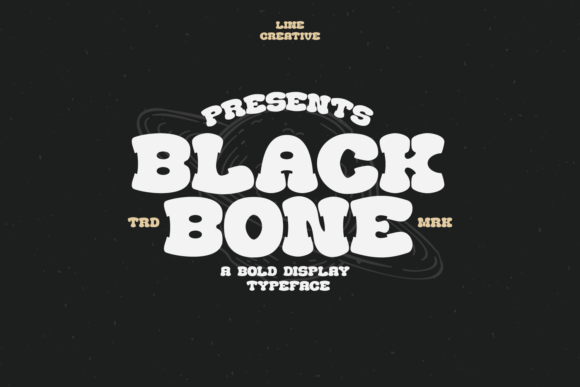
Dive into the realm of visual flair with Black Bone Font, a captivating display font that will add a touch of playfulness and friendliness to your projects. Whether you're creating posters, logos, social media graphics, or eye-catching headlines, Black Bone Font is the perfect choice for making a vibrant impact. With its retro-inspired style, this font exudes a sense of nostalgia, transporting you back to the groovy era of the past.
Embrace the joyous energy of Black Bone Font and let your creativity soar. Say goodbye to dull and conventional fonts and hello to a world of playful expression. Its unique and distinctive letterforms will make your designs pop, leaving a lasting impression on your audience. Experiment with different colors, textures, and backgrounds to create designs that are as unique as your imagination.
Unleash your inner artist and let Black Bone Font ignite your creative spark. With its versatile personality, this font can effortlessly adapt to various projects, from playful posters to captivating logos. Its friendly vibe makes it perfect for designs aimed at younger audiences, while its retro charm adds a touch of nostalgia to any project. Bold, quirky, and brimming with character, Black Bone Font is the ultimate choice for designers seeking to make a statement.
Black Bone Font is more than just a font; it's a gateway to a world of creative possibilities. Its energetic and lively style will add a touch of whimsy and fun to your designs, making them stand out from the crowd. Let Black Bone Font be your creative companion as you embark on a journey of visual storytelling, leaving your audience captivated and inspired.